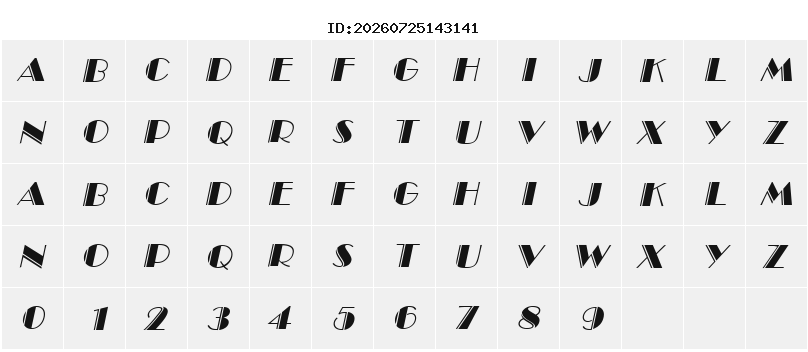
Invite Engraved SF Preview
• Font Name: Invite Engraved SF
• Font ID: Altsys Fontographer 3.5 HarlemEngraved Italic
• Full Font Name: Invite Engraved SF Italic
• PostScript Name: InviteEngravedSF-Italic
About Invite Engraved SF.ttf
Invite Engraved SF.ttf is a modern, elegant sans-serif font designed for ultimate readability and visual harmony. Perfect for branding, headlines, web design, and print materials.